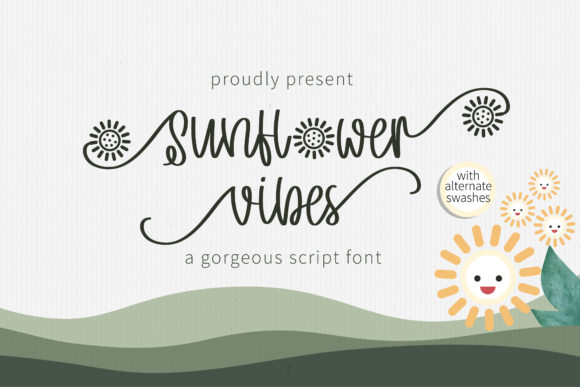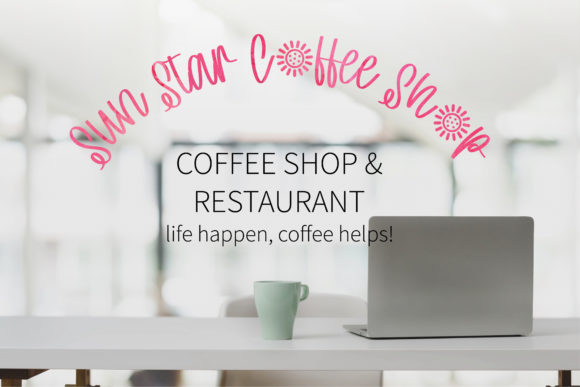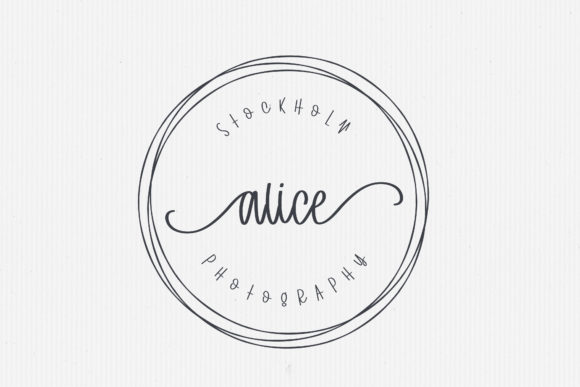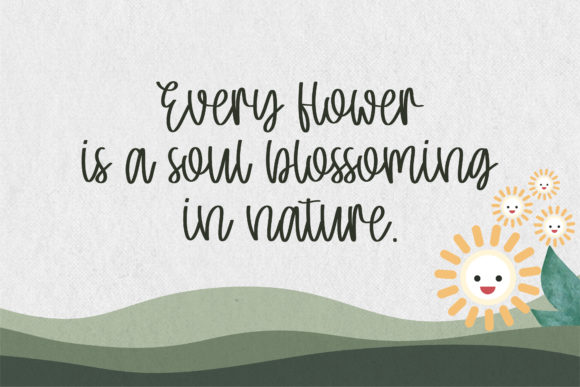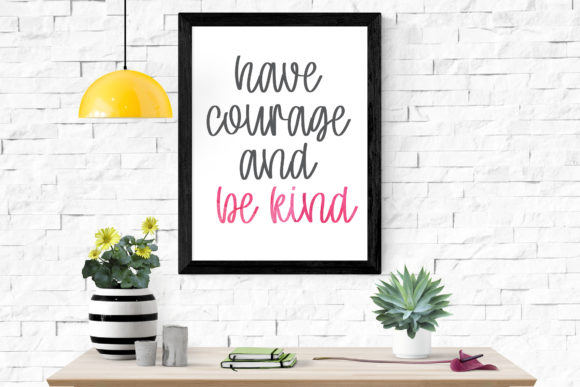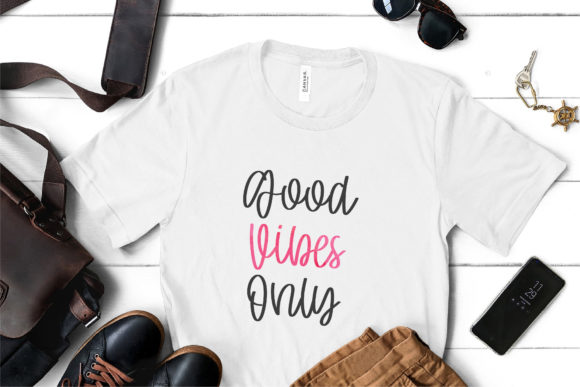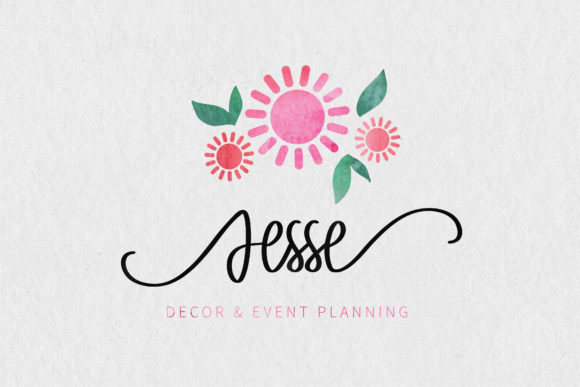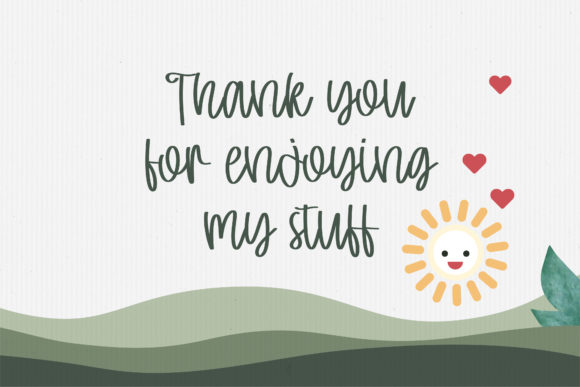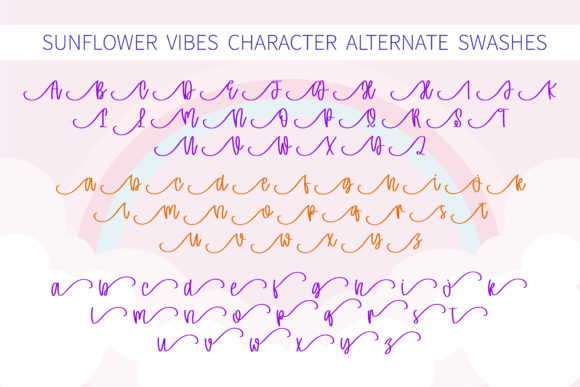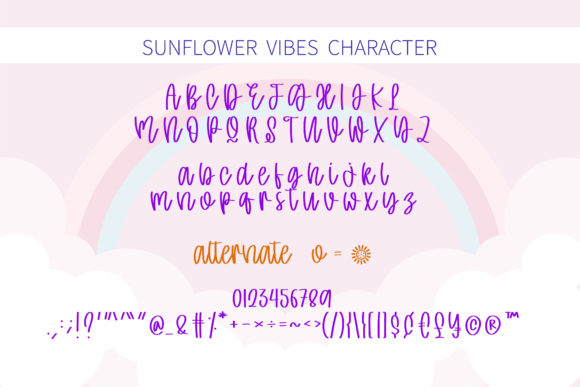
Sunflower Vibes Font
About Sunflower Vibes Font
Sunflower Vibes is a handwritten font which feels equally charming and elegant. It looks stunning on wedding invitations, thank you cards, quotes, greeting cards, logos, business cards, and every other design which needs a handwritten touch.